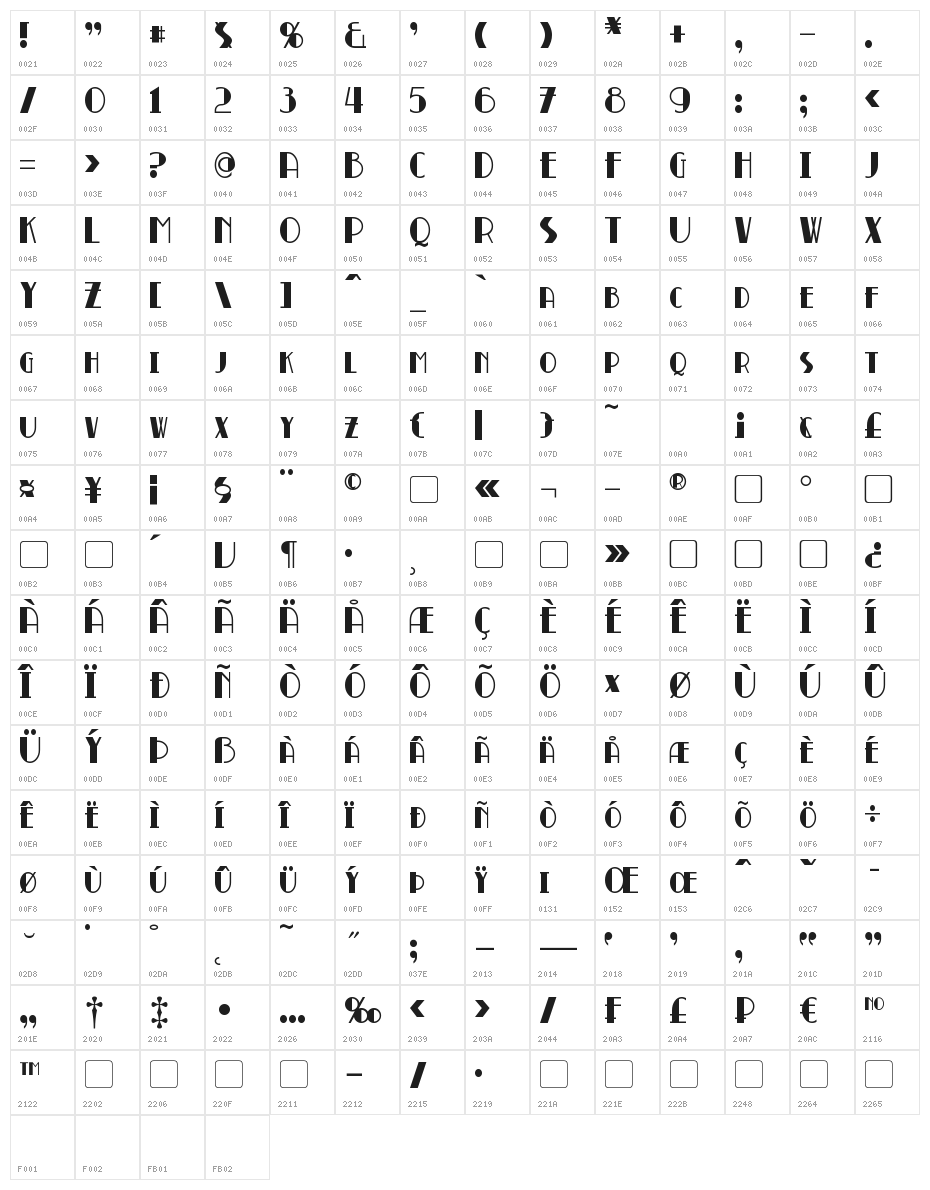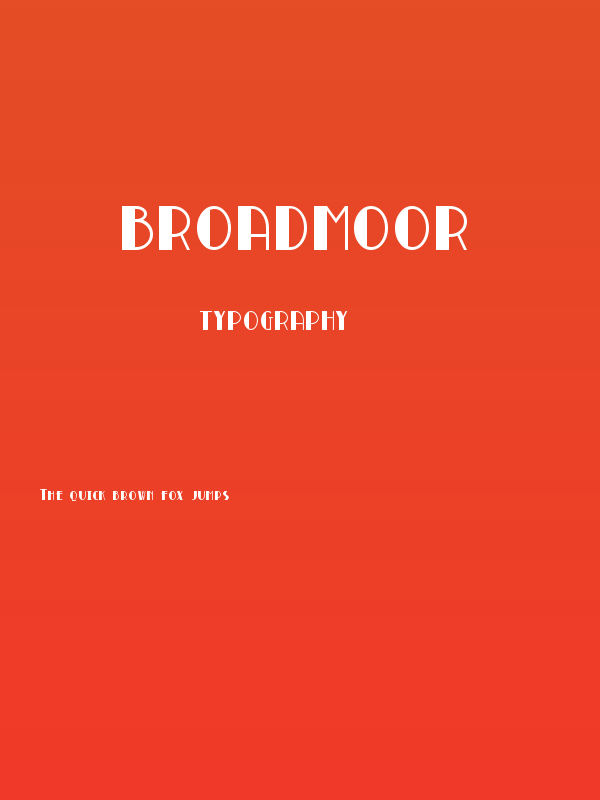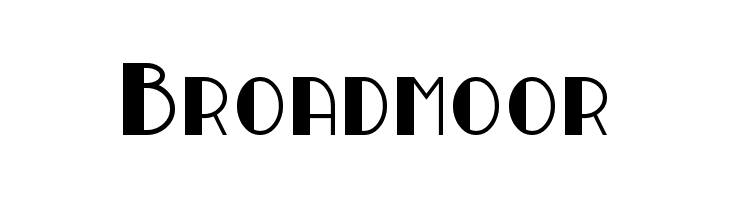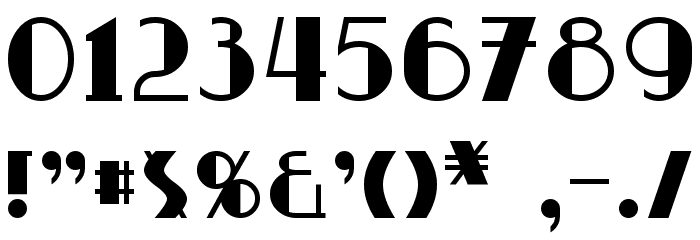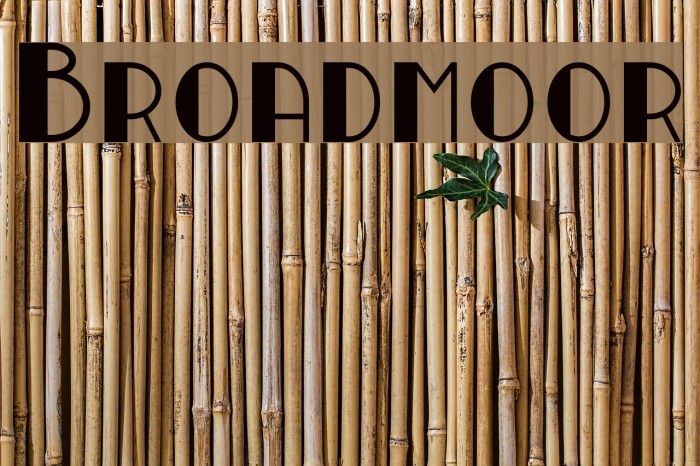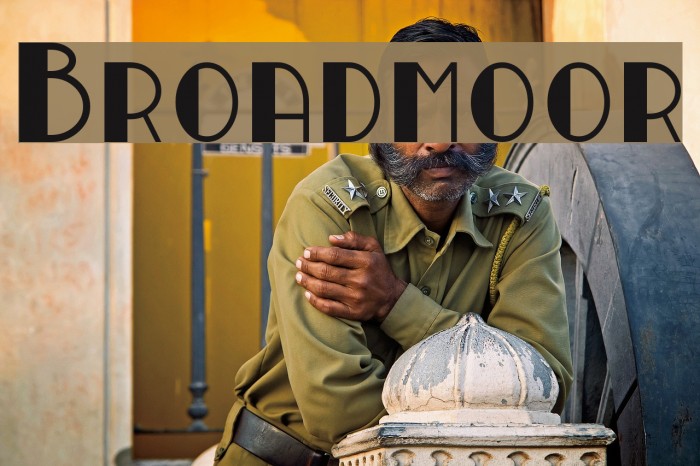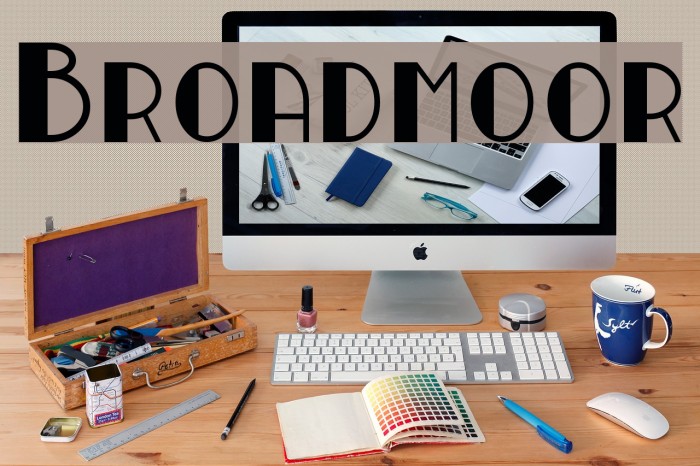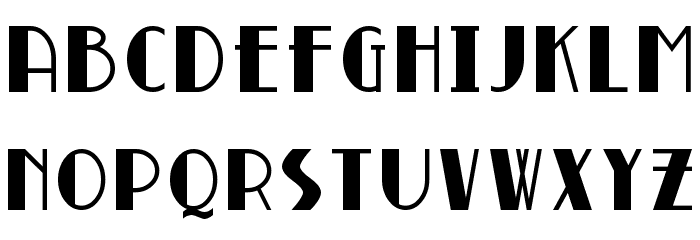
Broadmoor Font
Broadmoor Description
This font features a bold and striking design with a modern twist. The characters are crafted with a unique geometric style, incorporating sharp angles and clean lines. The uppercase letters are particularly distinctive, with some characters featuring unexpected curves and cuts that add a dynamic feel. The numerals and special characters maintain this bold aesthetic, ensuring consistency across all glyphs. This font's design is both eye-catching and versatile, making it suitable for a variety of creative applications.